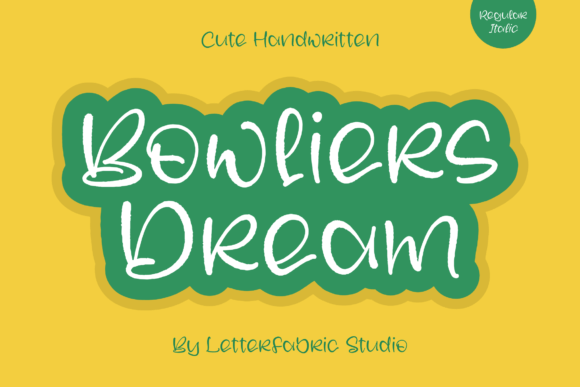
Dive into the realm of creativity with Bowlers Dream: A script font that emanates charm, playfulness, and an irresistible handwritten touch. Step into a world where letters dance with whimsy, adding a dash of delight to your designs.
Bowlers Dream isn't just a font; it's an expression of your individuality, a reflection of your unique style. With its effortlessly charming strokes, this font transforms ordinary words into captivating art, leaving an imprint that resonates with your audience.
Whether you're a seasoned designer or just starting your creative journey, Bowlers Dream will be your steadfast companion. Its versatility knows no bounds, adapting seamlessly to a myriad of projects: from heartfelt greeting cards to eye-catching social media posts, from captivating presentations to stunning digital designs.
Picture this: your designs adorned with Bowlers Dream's graceful curves, capturing attention and sparking conversations. Its friendly demeanor invites your audience to engage, like a warm smile that draws them into your creative realm.
But Bowlers Dream isn't just visually captivating; it's also incredibly user-friendly. Its smooth flow and effortless legibility ensure that your messages shine through, leaving a lasting impression that lingers in the minds of your audience.
So, embrace the magic of Bowlers Dream and unleash your creativity. Let your designs speak volumes, conveying emotions and messages with a touch of whimsy and a dash of delight.